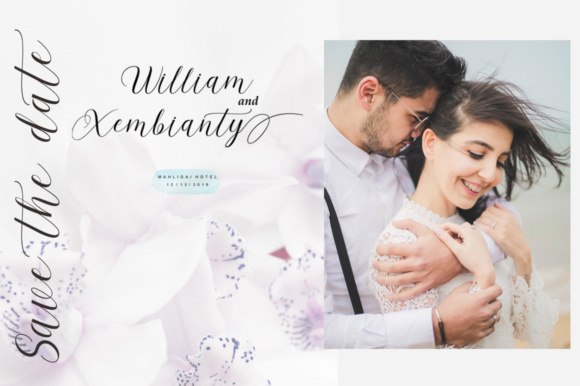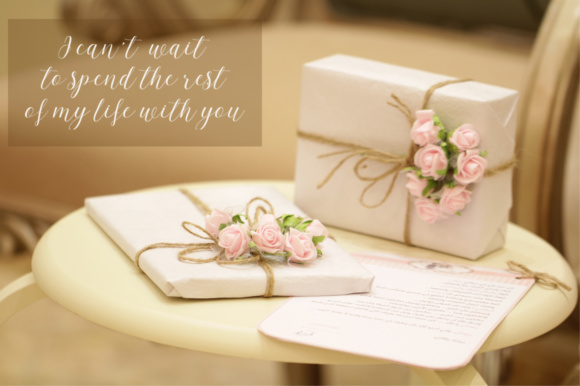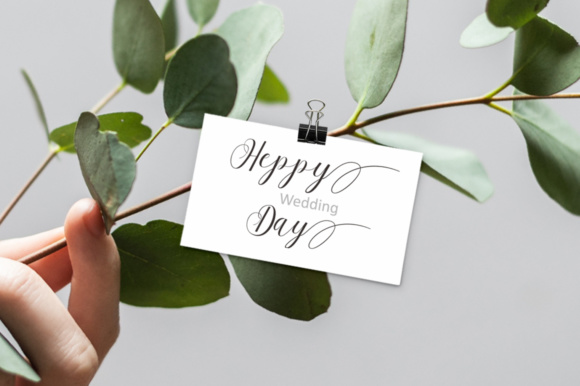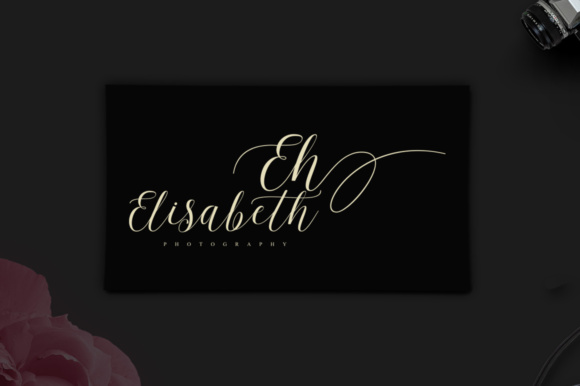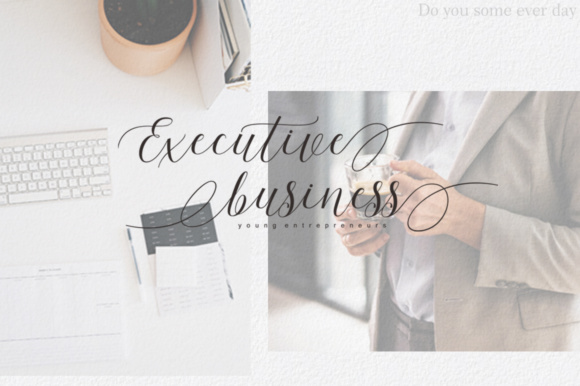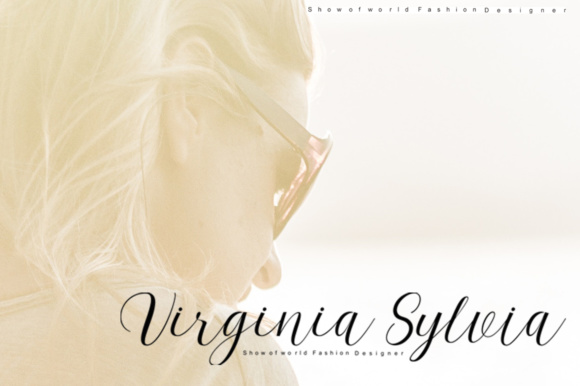
Introducing the Elegance of Agency Script Font
The Agency Script is a stunning handwritten typeface that exudes classical roots, offering a perfect blend of formality and elegance. This versatile font is suitable for a wide range of projects, making it a go-to choice for designers and crafters looking to add a touch of sophistication to their work.
Classical Roots and Elegant Design
The Agency Script font boasts a rich, classical heritage, reminiscent of traditional calligraphy. Its elegant design features flowing lines, delicate strokes, and a refined aesthetic that evokes a sense of luxury and refinement. Whether you’re working on a branding project, creating wedding invitations, or designing a logo, this font is sure to impress.
One of the standout features of the Agency Script font is its incredible versatility. Its formal and elegant design makes it perfect for:
• Wedding and event invitations: Add a touch of sophistication and romance to your wedding stationery or event invites.
• Branding and logos: Create a lasting impression with a custom logo or brand identity that exudes elegance and refinement.
• Packaging and product design: Elevate your product packaging with a luxurious and high-end feel.
• Advertising and marketing materials: Make a statement with eye-catching ads and marketing materials that showcase your brand’s personality.
Design and Crafting Applications
The Agency Script font is not just limited to digital applications; it’s also perfect for crafters and makers who want to add a personal touch to their work. Use it for:
• Hand lettering and calligraphy: Create beautiful, hand-lettered pieces that showcase your skills.
• Paper crafting and card making: Add a touch of elegance to your paper crafts, cards, and gift tags.
• DIY projects and crafts: Use the Agency Script font to create custom labels, signs, and decorations for your DIY projects.
Why Choose the Agency Script Font?
With so many fonts available, why choose the Agency Script font? Here are just a few reasons:
• Unique and distinctive: The Agency Script font has a unique and distinctive style that sets it apart from other fonts.
• High-quality design: The font features high-quality design elements, ensuring that it looks great in any application.
• Ease of use: The Agency Script font is easy to read and use, making it perfect for a wide range of projects.
Font Name Agency Script Font
Author joelpopon
The Agency Script font is a versatile and elegant typeface that’s perfect for designers and crafters looking to add a touch of sophistication to their work. With its classical roots, formal design, and wide range of applications, this font is sure to become a staple in your design arsenal. So why wait? Discover the elegance of the Agency Script font and take your designs to the next level.